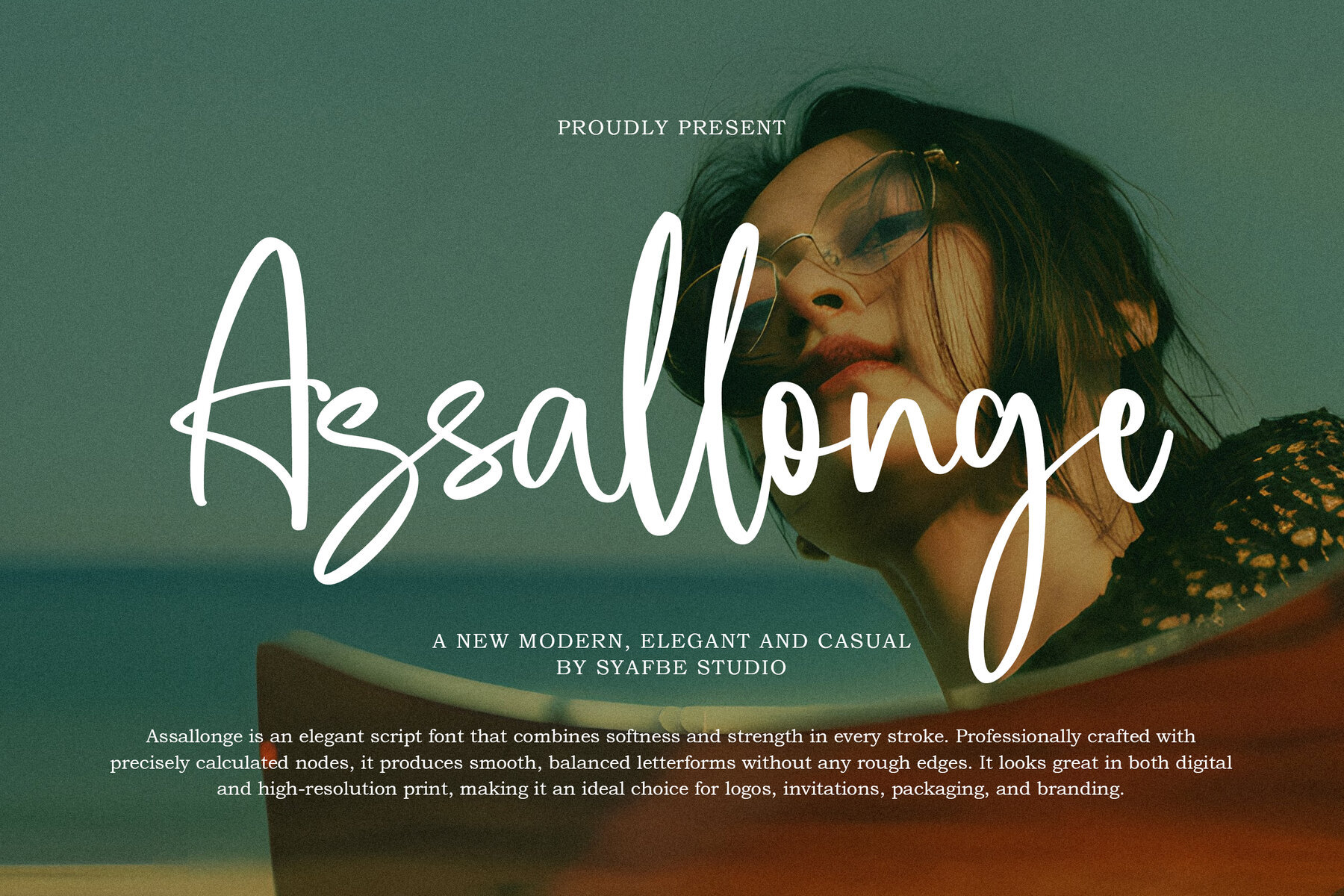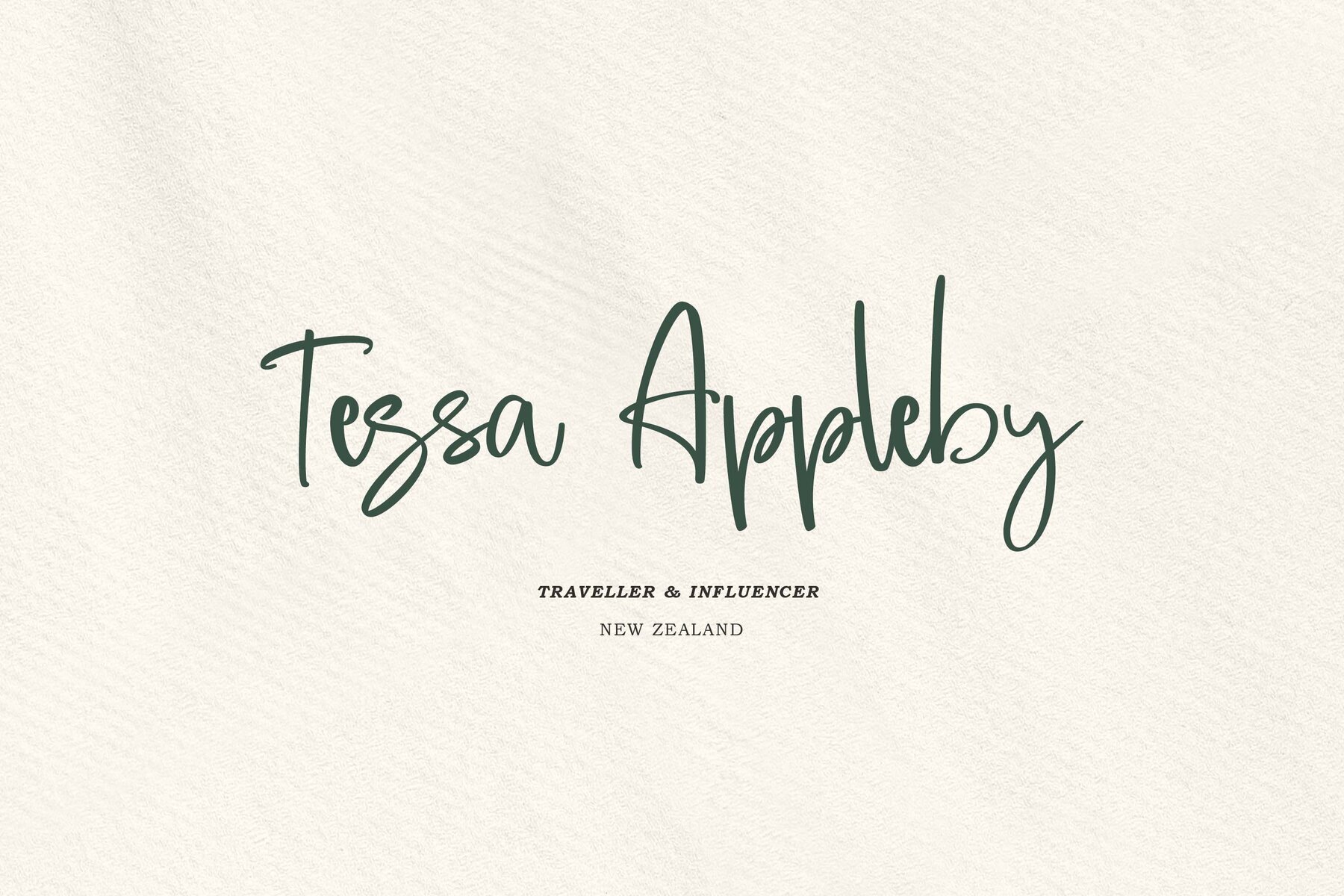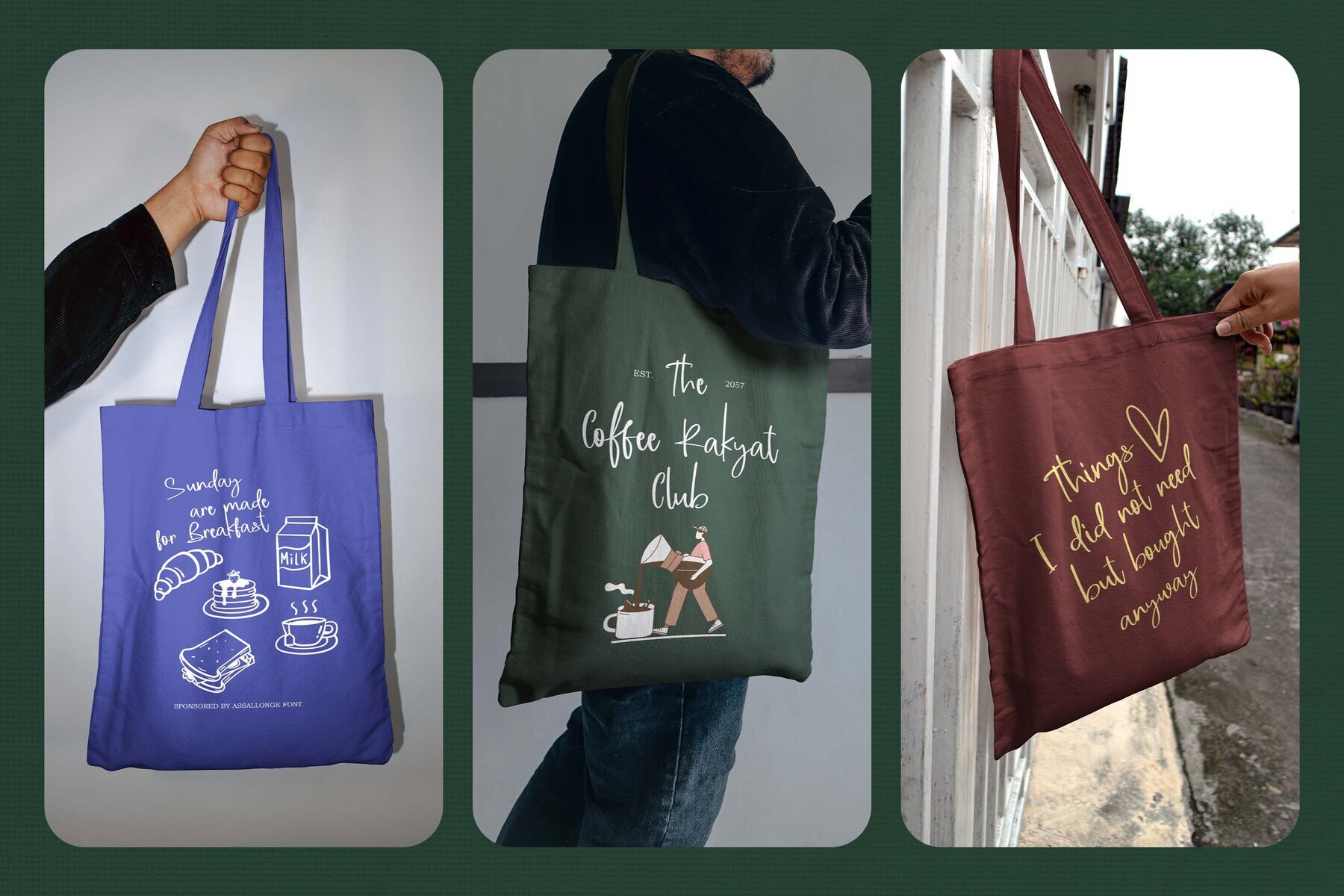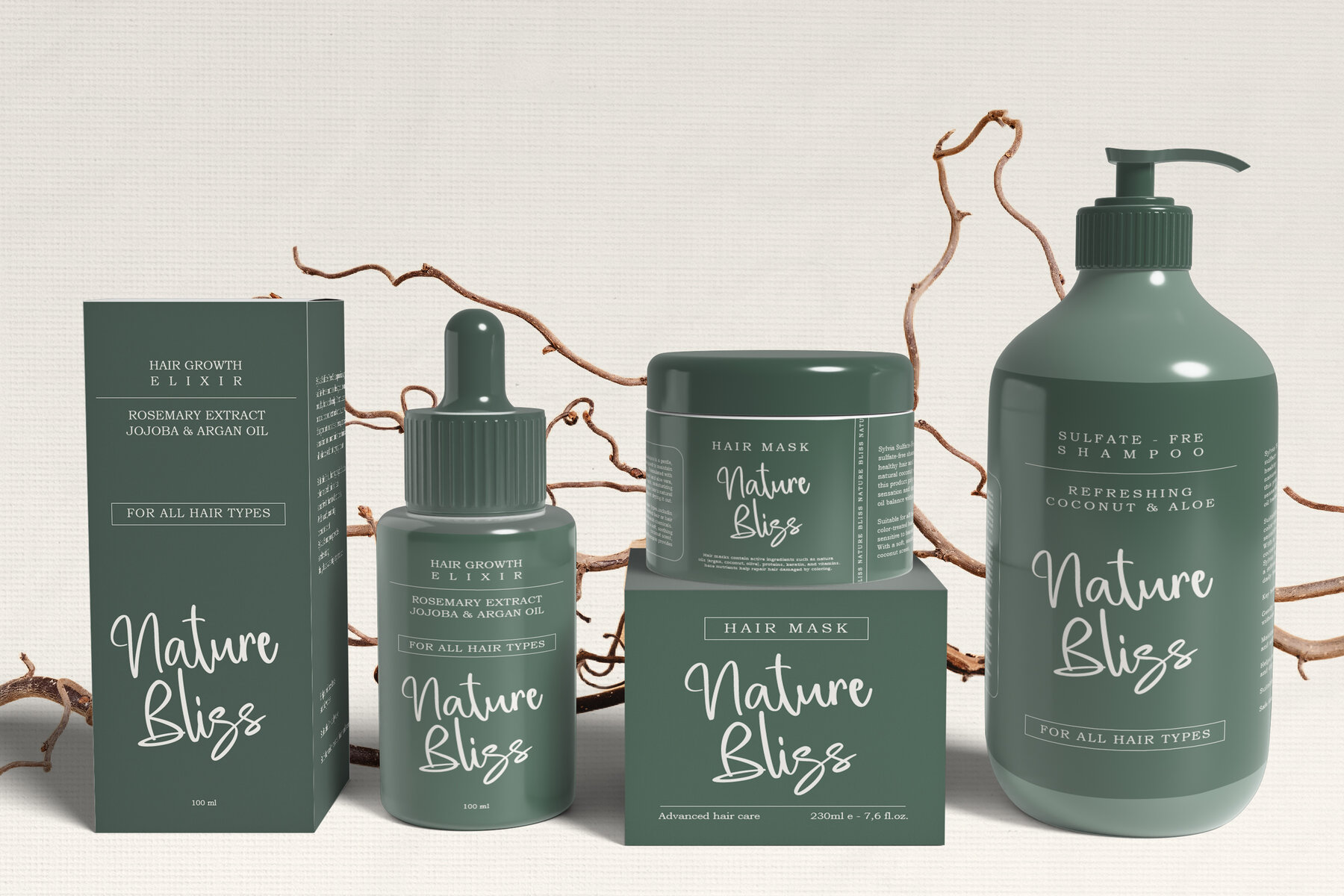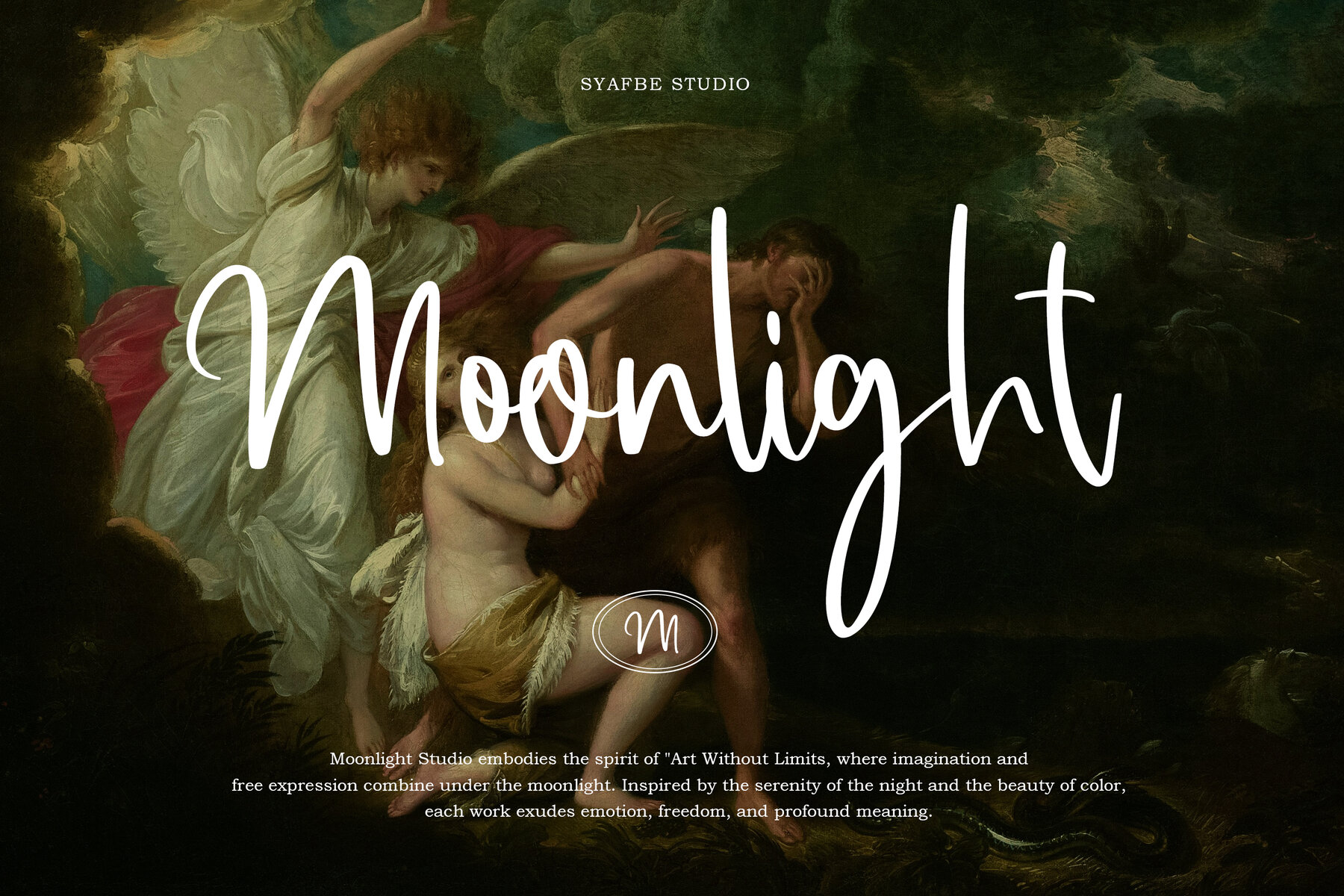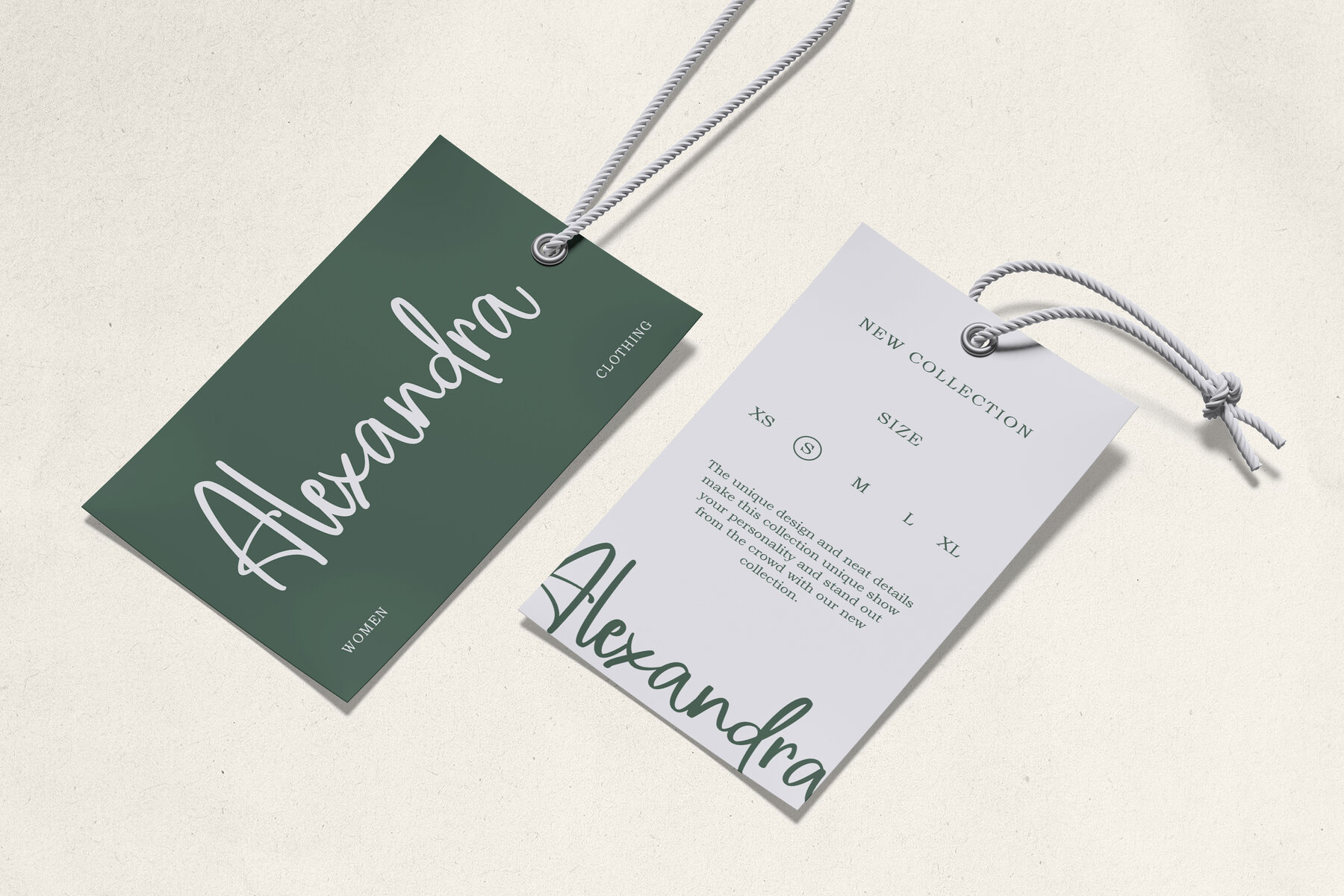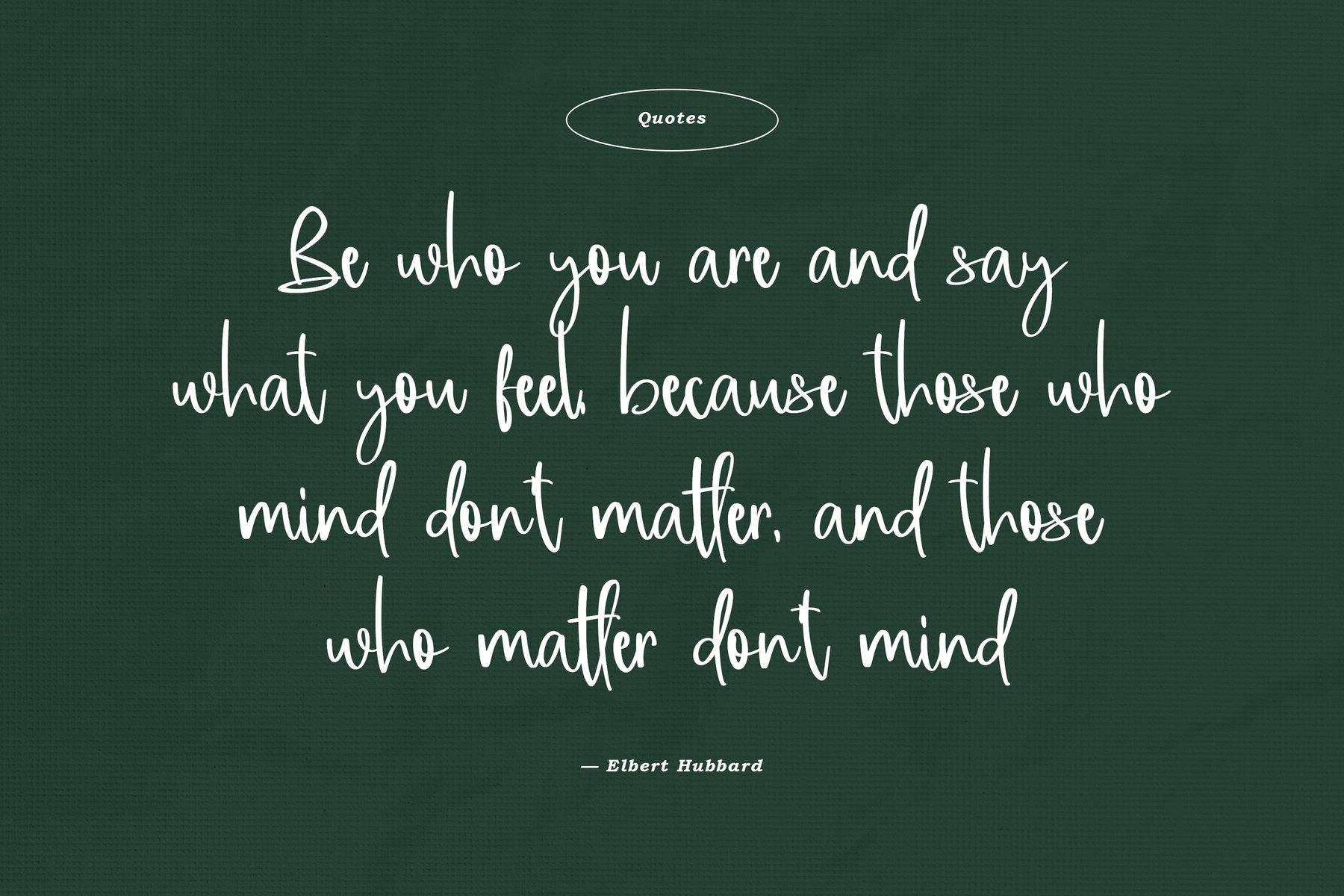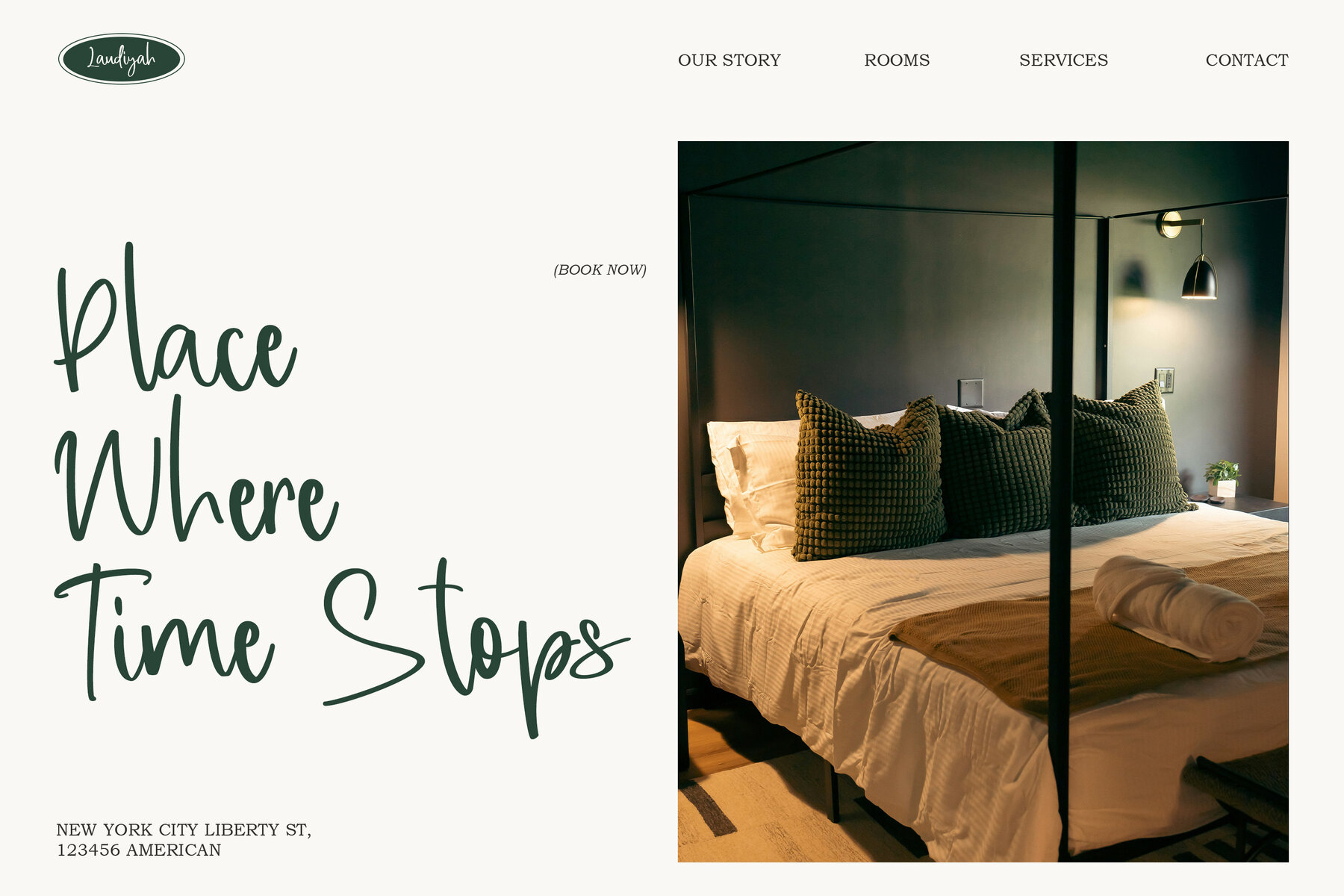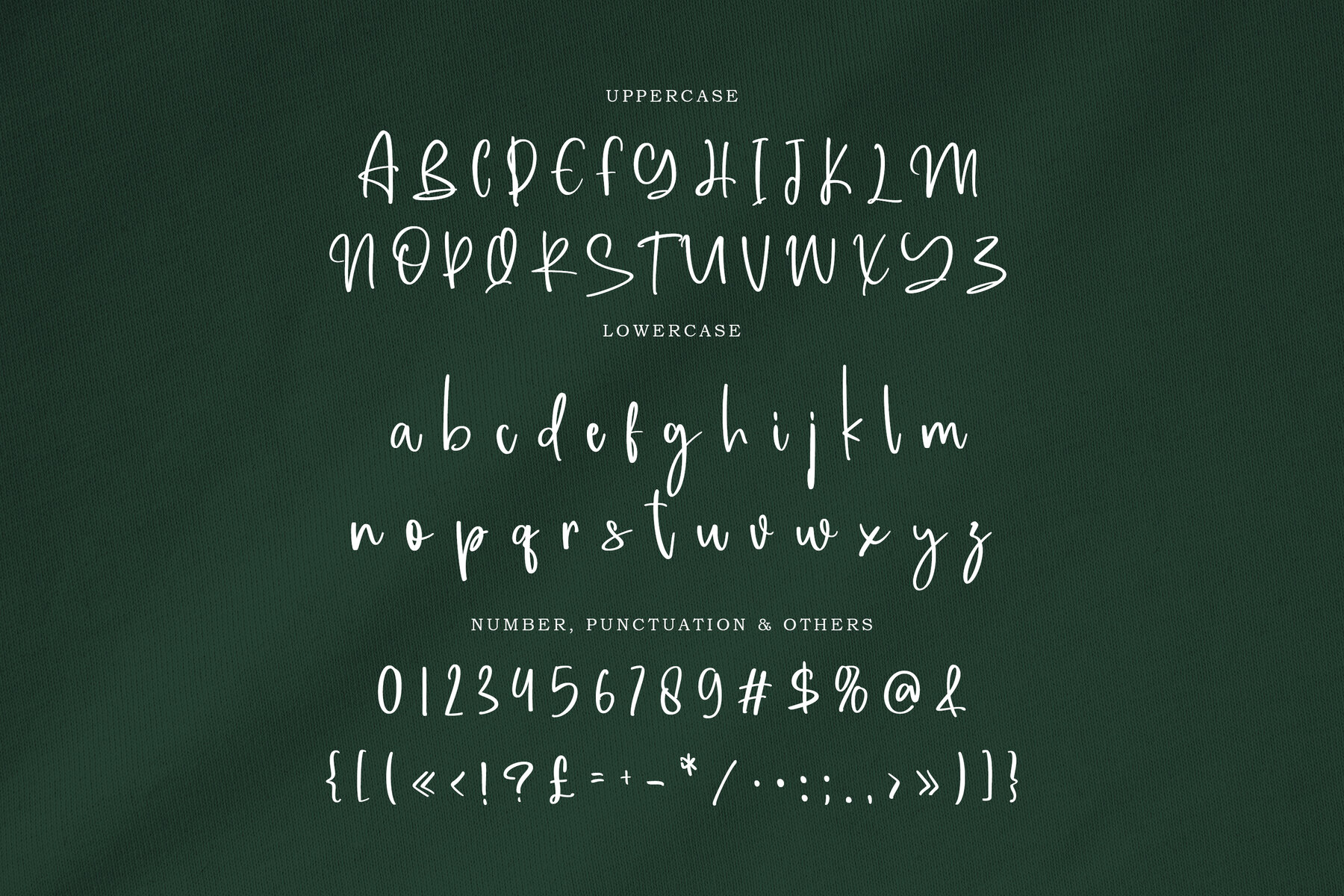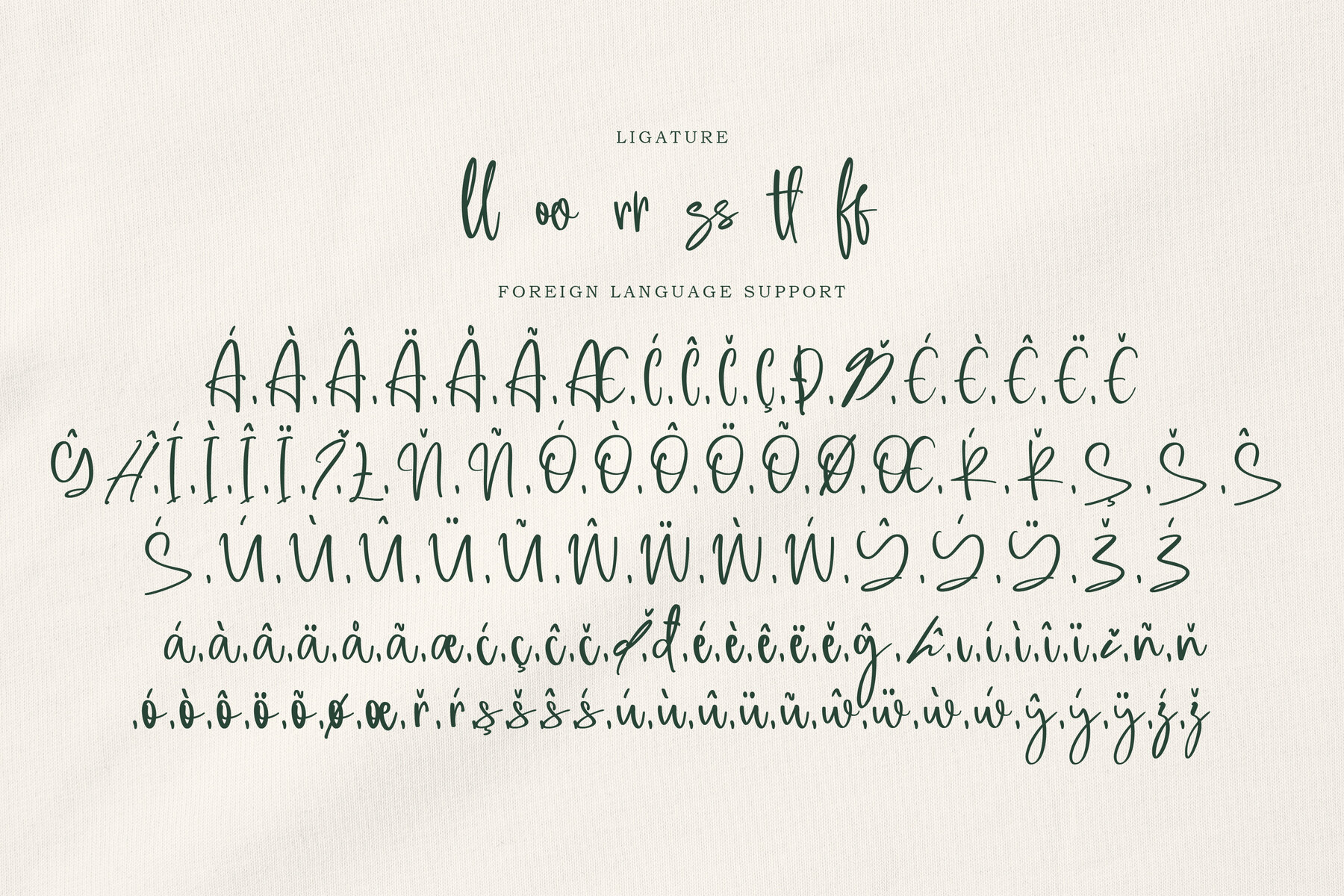
Assallonge Font
Assallonge Regular
Assallonge stands out as a modern script font, striking a rare balance between refined softness and visual strength. Every stroke is shaped with deliberate fluidity, resulting in letterforms that reflect the nuances of authentic handwriting, yet preserve a clean and confident silhouette. The absence of harsh edges and the precision of each curve lend Assallonge a sophisticated touch, allowing it to communicate professionalism across various media. Its versatility is further underscored by an innate ability to convey understated elegance alongside casual charm. Use Assallonge for logos, invitations, product packaging, or broader branding applications, where its inviting forms introduce a subtle warmth while maintaining a clearly luxurious presence. Each character has been designed to offer a modern, expressive tone that resonates with both romantic and contemporary sensibilities.Assallonge: A Modern Script with Graceful Precision